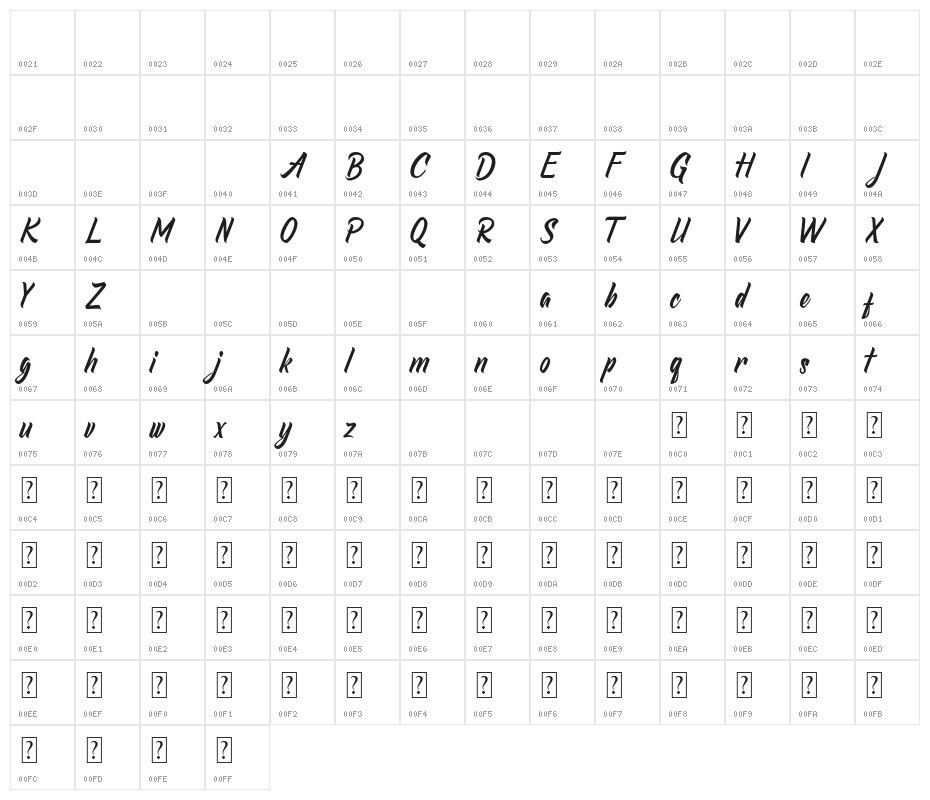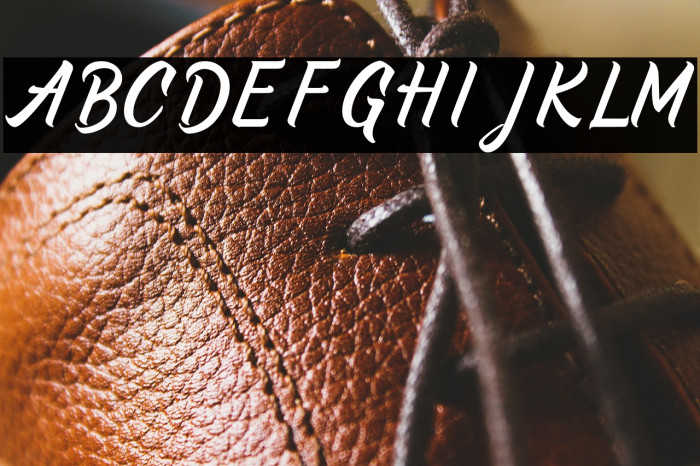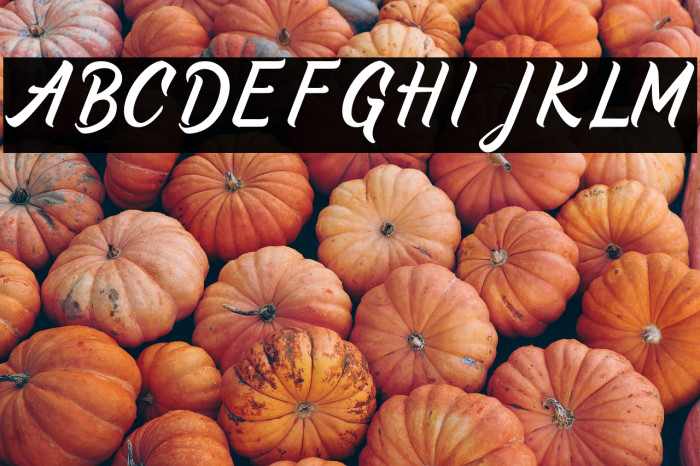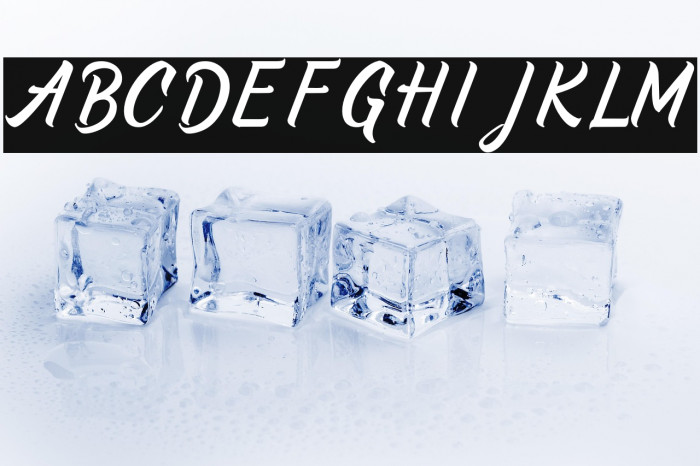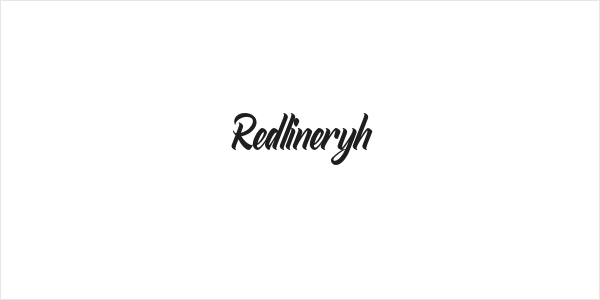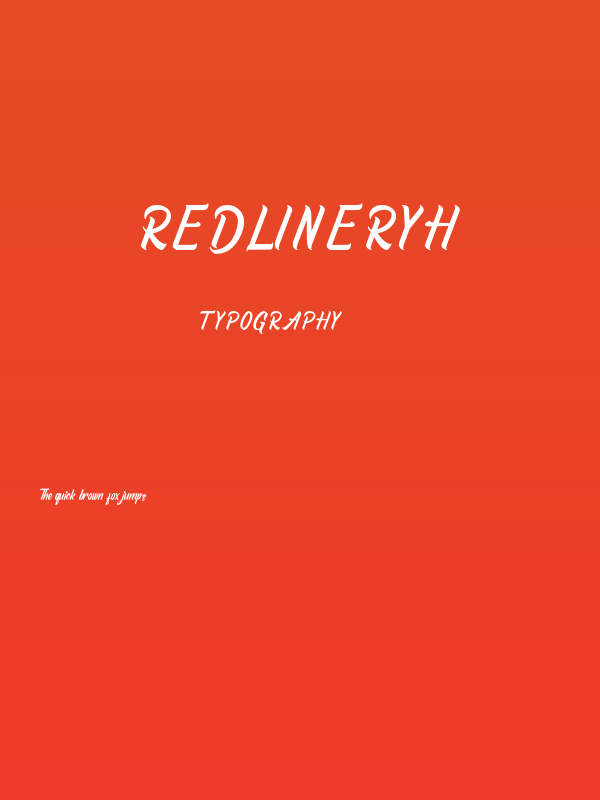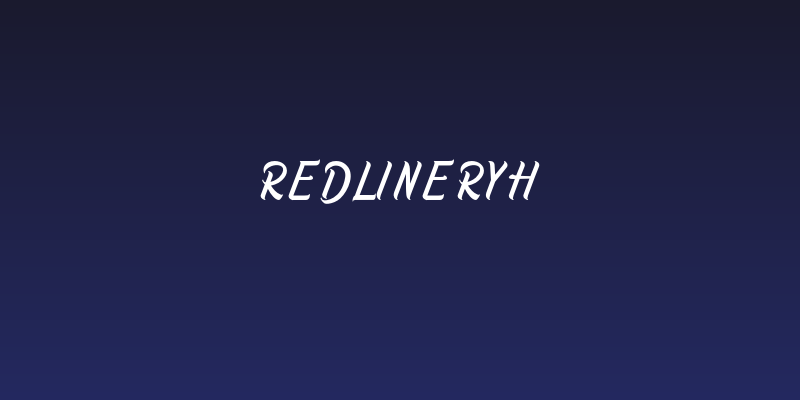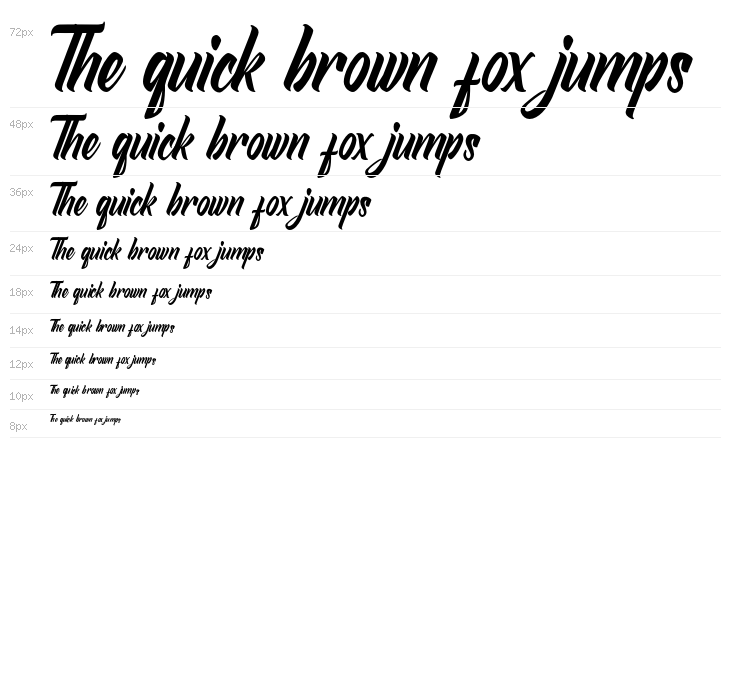
Redlineryh Font
Redlineryh Description
This font features a dynamic and expressive script style with a strong sense of movement and fluidity. The uppercase letters are slightly slanted, giving a sense of elegance and speed, while the lowercase letters are more compact and bold, adding a sense of strength and assertiveness. The strokes are thick and consistent, providing a bold presence on the page. The overall design is reminiscent of calligraphy, with a modern twist that makes it suitable for contemporary uses. The characters are well-spaced, ensuring readability while maintaining a cohesive look.
Use CaseLogos, Headlines, Invitations
Proposed ProjectsIdeal for branding projects, logo design, invitations, and headlines that require a touch of elegance and modernity.